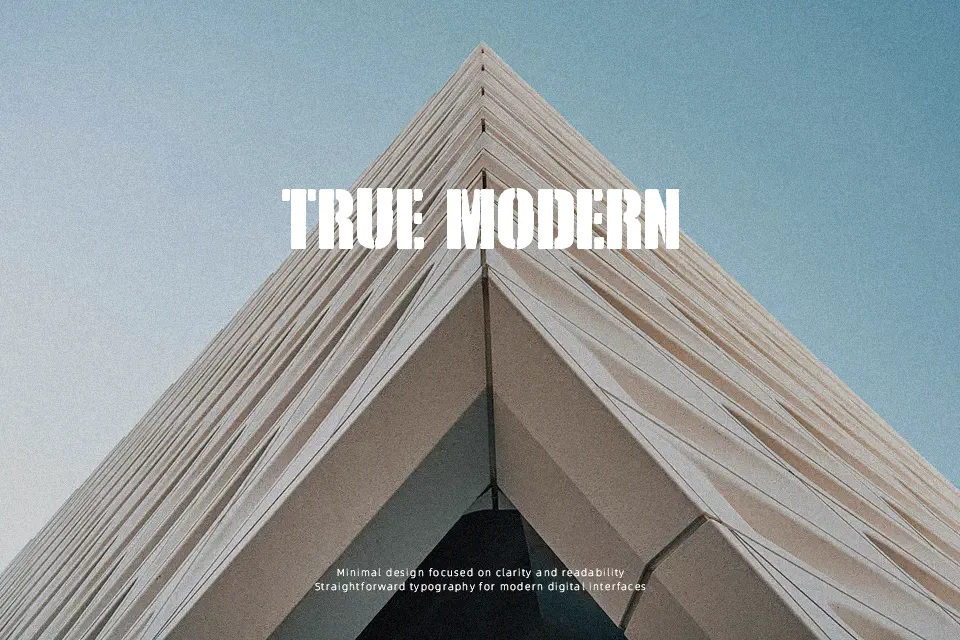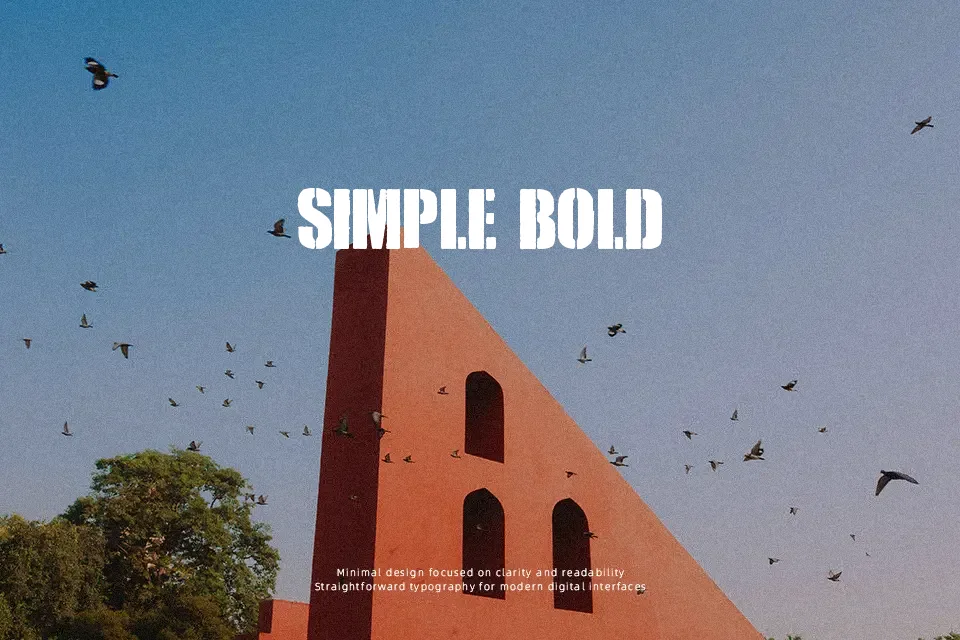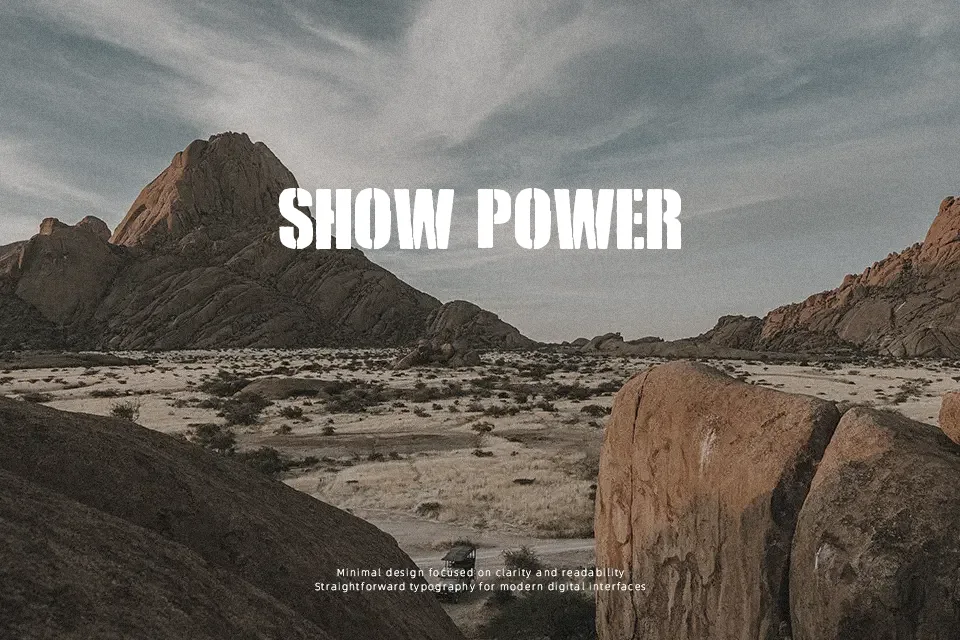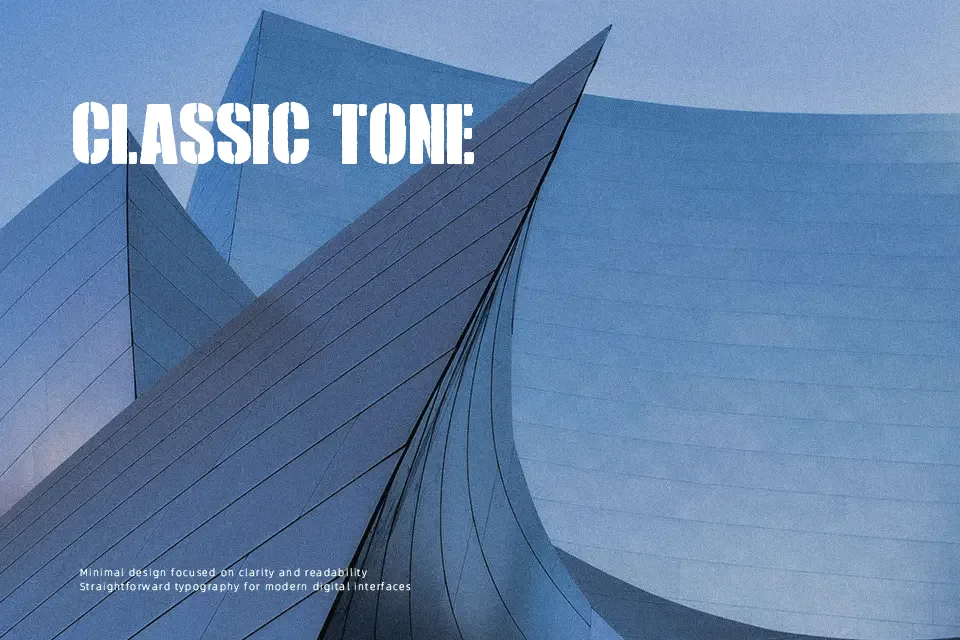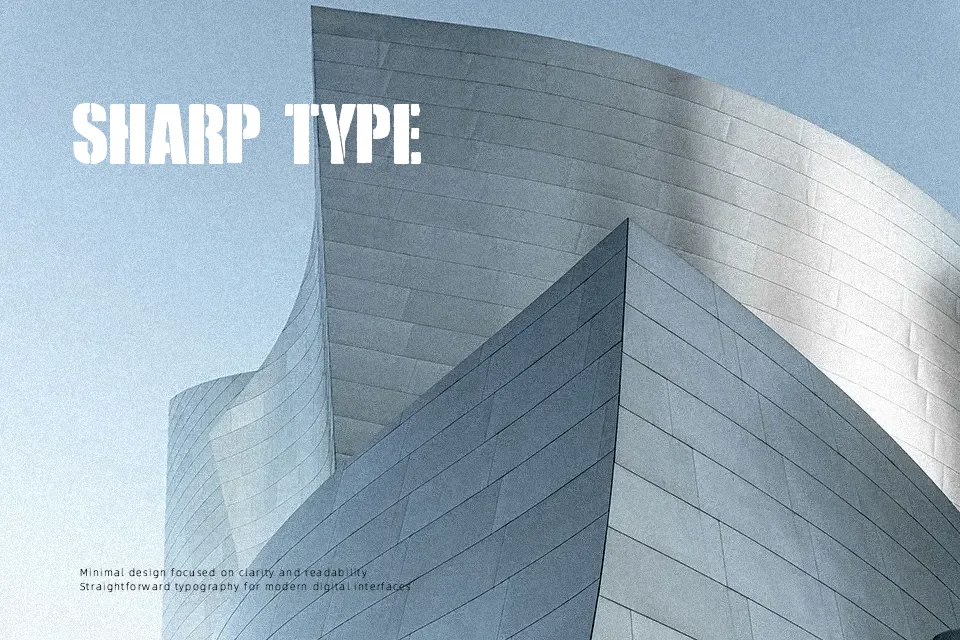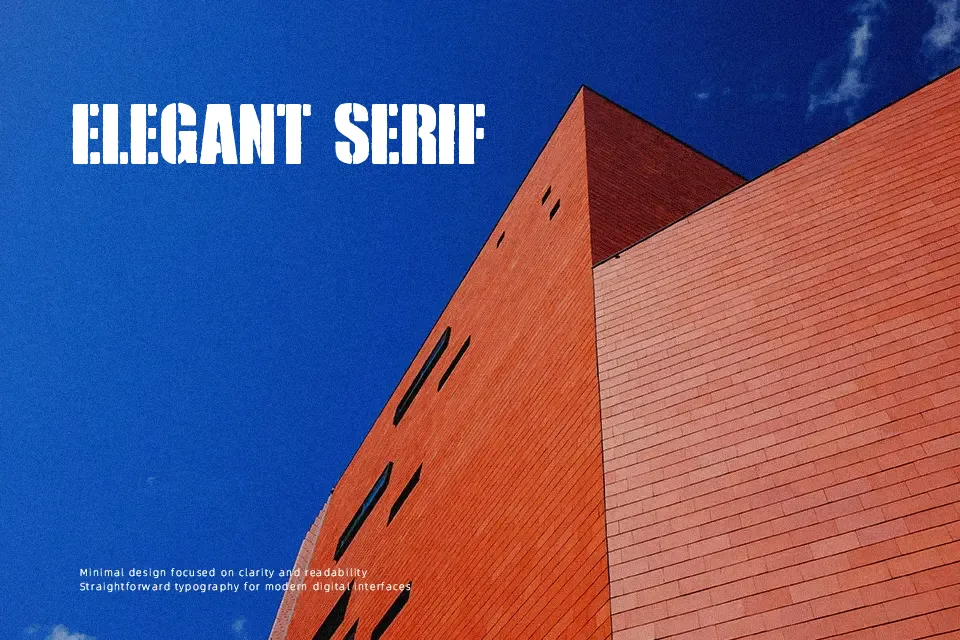
Royal Rumble Font
Designed by Jayde Garrow
The Royal Rumble Font commands attention through its heavy, imposing structure and aggressive stencil cuts. Characterized by thick, blocky strokes and wide proportions, the letterforms deliver an undeniable athletic and military aesthetic. The tight spacing helps maintain clarity in larger headlines, ensuring the typeface remains highly legible from a distance. Because of its intense stroke weight and rigid geometry, this display design performs best in sports branding, event posters, and action-oriented apparel graphics. However, the dense forms reduce comfort during extended reading, making the design less suitable for continuous paragraphs. The broken stencil links create a strong industrial rhythm that adds a rugged edge to high-impact compositions.
Best For: sports event posters, athletic apparel graphics, military themed branding
Not Ideal For: long paragraph text, small interface labels, dense editorial layouts
Perfect for headline, logo, and poster, with a bold and display style.